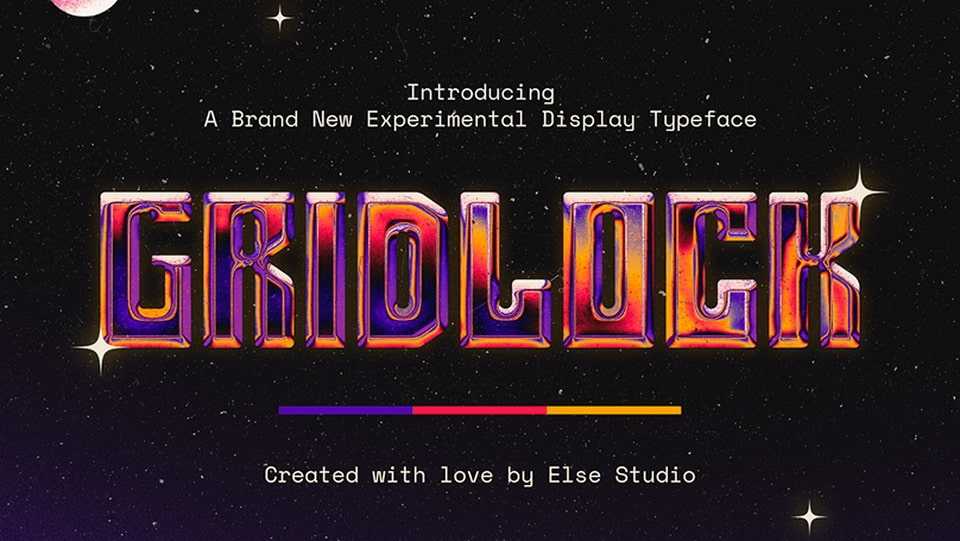
Download Gridlock font, a bold and experimental display typeface. This typeface is perfect for headlines, posters, and creative projects, adding a unique, spacey, retro-futuristic aesthetic to your designs.
Designer: Else Studio